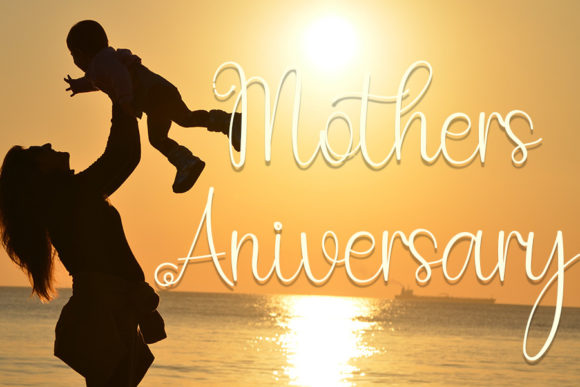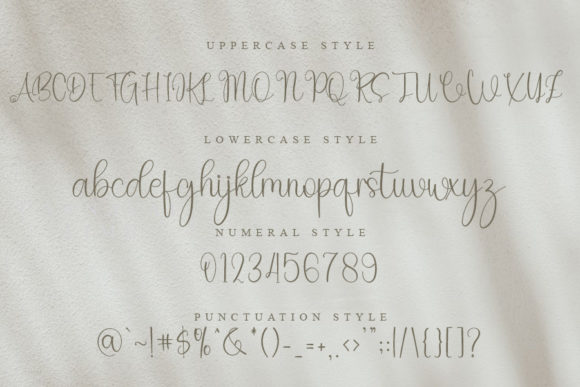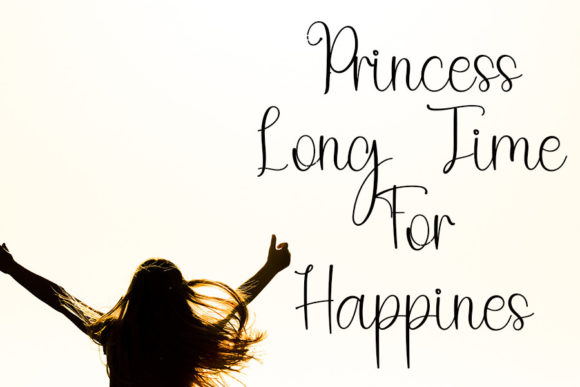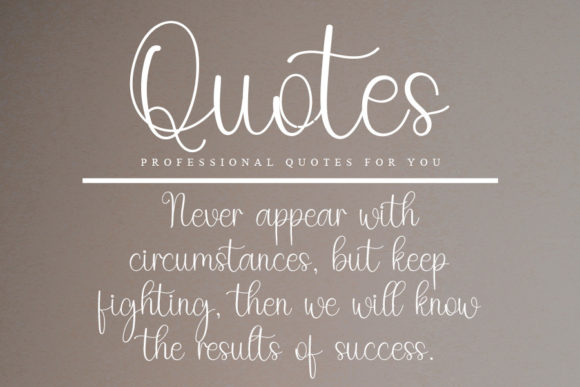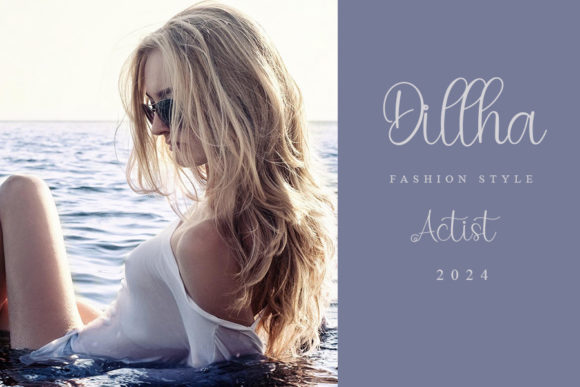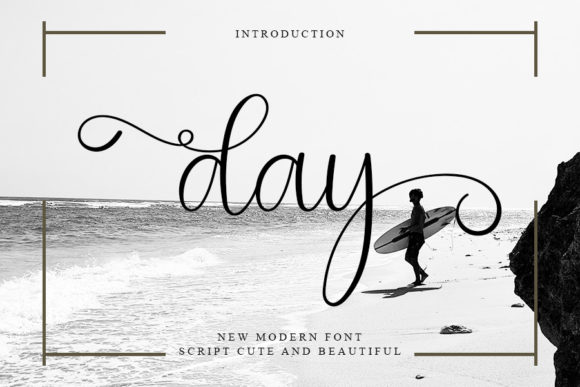
Introducing Day Font: Elevate Your Designs with Timeless Elegance
In the world of typography, fonts play a crucial role in conveying the tone and personality of a design. For designers and crafters seeking a stylish and contemporary handwritten font, Day Font is an exceptional choice. Inspired by timeless classic calligraphy, Day Font brings a touch of sophistication and elegance to any project.
What is Day Font?
Day Font is a beautifully crafted handwritten font, designed to add a personal and creative touch to your designs. With its impeccable form and balanced style, this font exudes a sense of refinement and poise. The result is a versatile typeface that can be used in a wide range of applications, from branding and advertising to packaging and digital media.
Key Features of Day Font
• Contemporary Atmosphere: Day Font boasts a modern and fresh feel, making it perfect for designers looking to create trendy and stylish designs.
• Timeless Classic Inspiration: The font’s classic calligraphy inspiration ensures that it remains timeless and versatile, suitable for both traditional and modern designs.
• Balanced and Varied: Day Font features a carefully crafted balance of letterforms, ensuring that your text remains clear and legible, even at smaller sizes.
• Impeccable Form: The font’s precise and elegant letterforms make it ideal for use in high-end designs, such as luxury branding and advertising.
Who Can Benefit from Day Font?
Day Font is an excellent choice for a variety of designers and crafters, including:
• Graphic Designers: Enhance your branding, advertising, and marketing materials with a sophisticated and elegant font.
• Digital Artists: Add a touch of personality and whimsy to your digital art and illustrations.
• Crafters: Use Day Font to create beautiful and unique handmade projects, such as cards, invitations, and scrapbooking.
• Web Designers: Elevate your website’s typography with a modern and responsive font that adapts to various screen sizes.
Tips for Using Day Font Effectively
To get the most out of Day Font, consider the following tips:
• Pair with Neutral Backgrounds: Allow Day Font to take center stage by pairing it with neutral backgrounds that won’t compete for attention.
• Experiment with Colors: Take advantage of Day Font’s versatility by experimenting with different colors and textures.
• Use for Headings and Titles: Day Font’s elegant style makes it perfect for use in headings and titles, adding a touch of sophistication to your designs.
Day Font is a stunning handwritten font that brings a touch of timeless elegance to any design. With its impeccable form, balanced style, and contemporary atmosphere, this font is sure to elevate your projects and leave a lasting impression. Whether you’re a designer, crafter, or digital artist, Day Font is an excellent choice for anyone seeking to add a touch of sophistication and personality to their work.